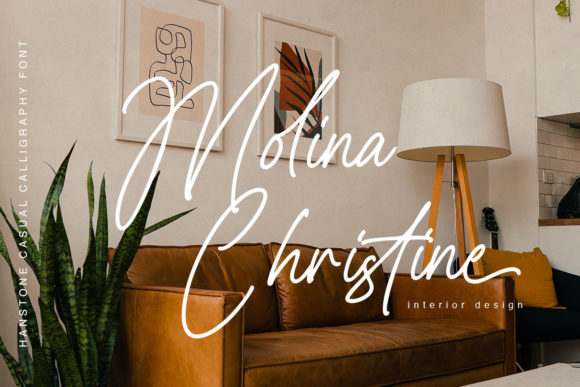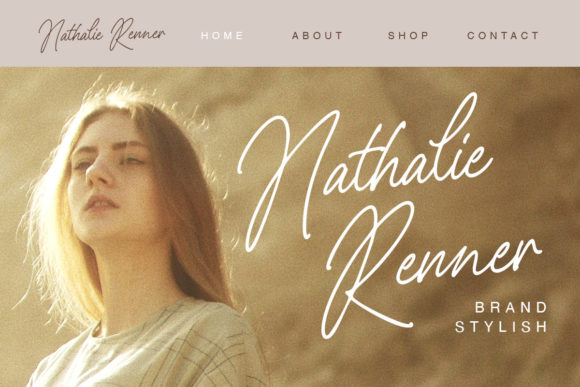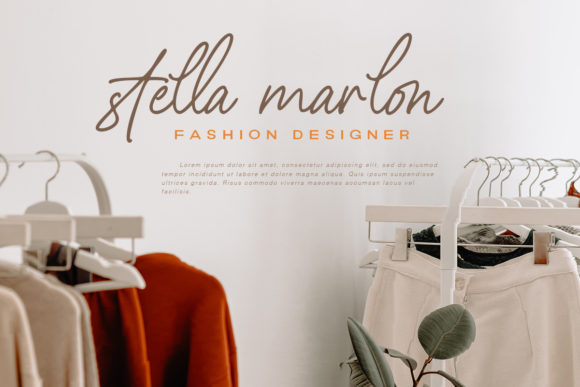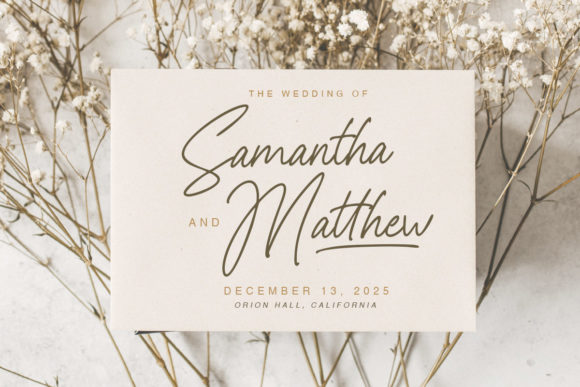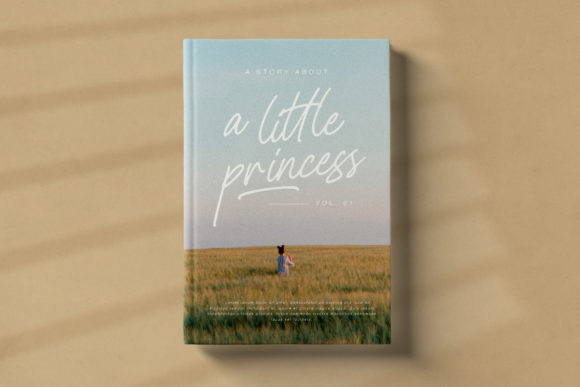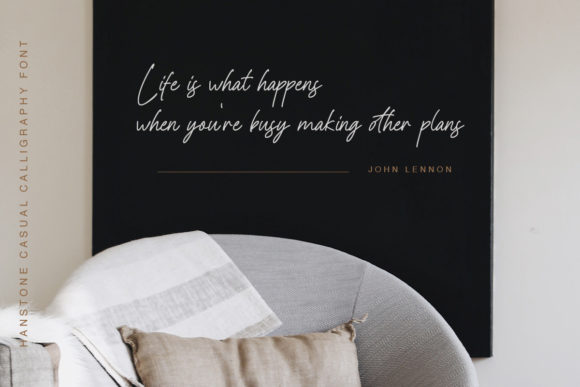
Introduction to Hanstone Font
Have you ever stared at a blank canvas, trying to come up with the perfect font to bring your creative project to life? We’ve all been there. The right font can make all the difference in elevating your design from good to great. That’s why I’m excited to introduce you to the Hanstone Font, a sweet and subtle handwritten font that’s sure to add elegance and class to any of your design projects.
As a valuable design resource, the Hanstone Font is perfect for designers looking to add a touch of sophistication to their work. With its PUA encoded glyphs and swashes, you’ll have access to a wide range of creative possibilities, making it easy to customize and tailor to your needs. Whether you’re working on a project with a transparent background or simply need a high-quality font to download, the Hanstone Font is an excellent choice.
Key Features of Hanstone Font
- Designed with a focus on readability, making it perfect for use in body text, headings, and titles.
Honest Review: Hanstone Font
As a designer, I’m always on the lookout for high-quality design resources that can elevate my creative project. I recently stumbled upon the Hanstone Font, and I’m excited to share my honest review.
What works well: ✨ The Hanstone Font is incredibly versatile, with a wide range of weights and styles that make it perfect for any design project. The font is also super easy to use, with a transparent background that makes it seamless to overlay on any image or graphic.
- ✨ Easy to use and customize
Any limitations: ⚠️ While the Hanstone Font is an excellent resource, it’s not suitable for commercial use without proper licensing. Additionally, some users may find the font’s minimalist design a bit too simple for their taste.
Overall impression: I’m thoroughly impressed with the Hanstone Font, and I would highly recommend it to designers who are looking for a high-quality, free design resource. With its transparent background and wide range of styles, it’s perfect for any creative project.
Tips for Getting the Most Out of Hanstone Font
To get the most out of Hanstone Font, use it in conjunction with a transparent background to create a modern and sleek look. Experiment with different font sizes and styles to find the perfect fit for your design project.
Hanstone Font is perfect for creative projects that require a high-quality design resource. It’s commonly used in branding, marketing, and advertising materials, as well as in social media graphics and promotional materials.